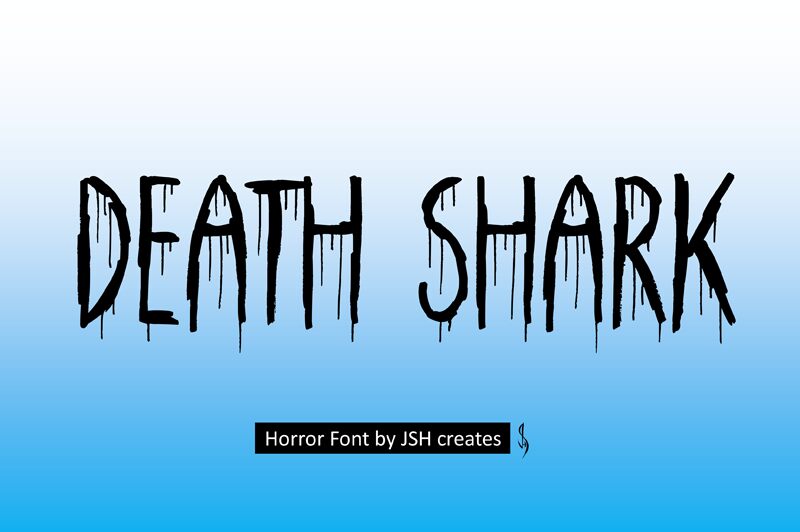
Death Shark
Death Shark font, designed by JSH creates, captivates with its chilling and dramatic essence. This display typeface embodies a thrillingly scary style, accentuated by sharp angles and fluid drips that evoke a haunting ambiance. Its condensed form adds intensity and urgency to the letters, making them impactful and attention-grabbing.
Visually striking, Death Shark is perfect for projects that demand an atmospheric touch—be it in horror-themed events, edgy merchandise, or compelling graphic designs. This font’s distinctive character effortlessly elevates visuals in contexts like posters, album covers, or any creative piece seeking to instill a sense of thrill and intrigue. Embrace the allure of Death Shark to leave an unforgettable impression.